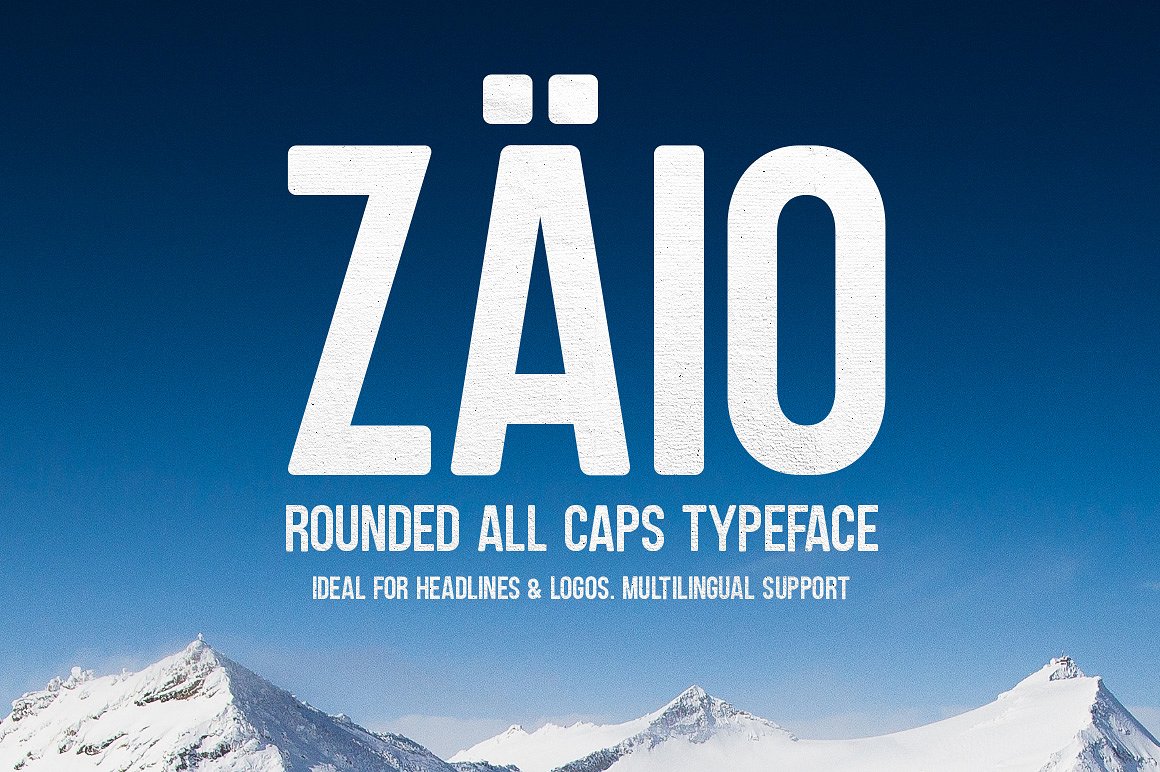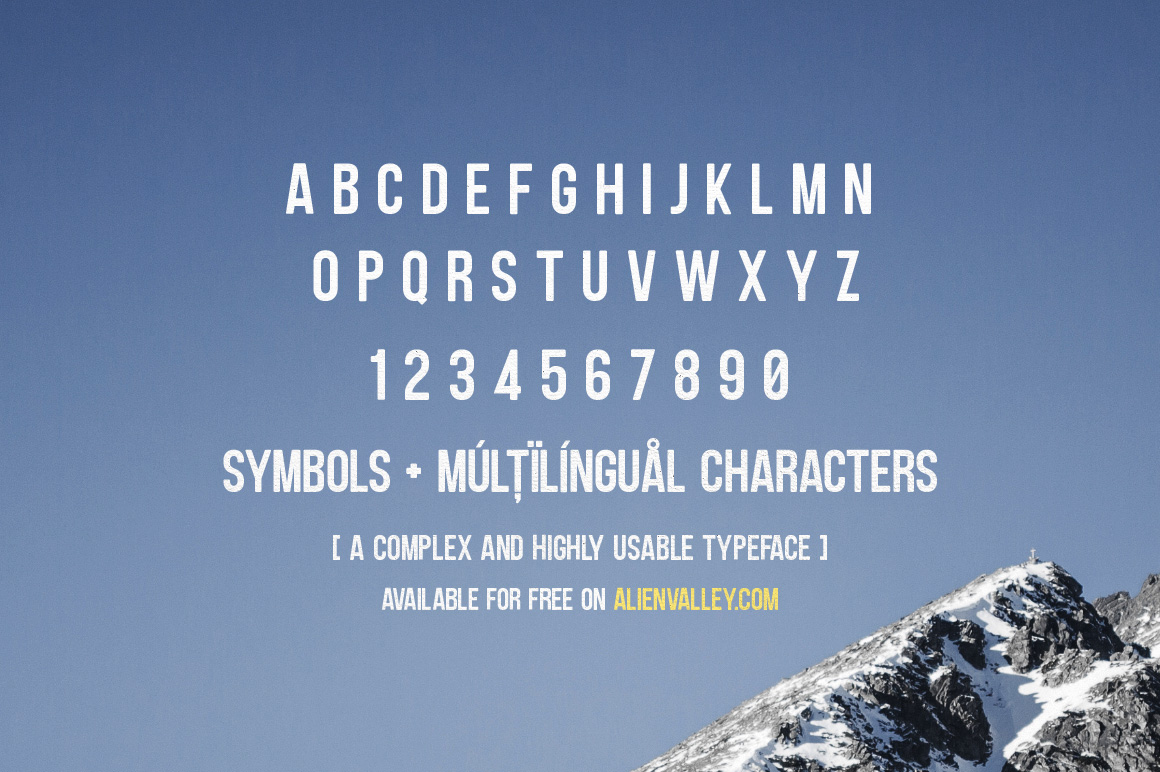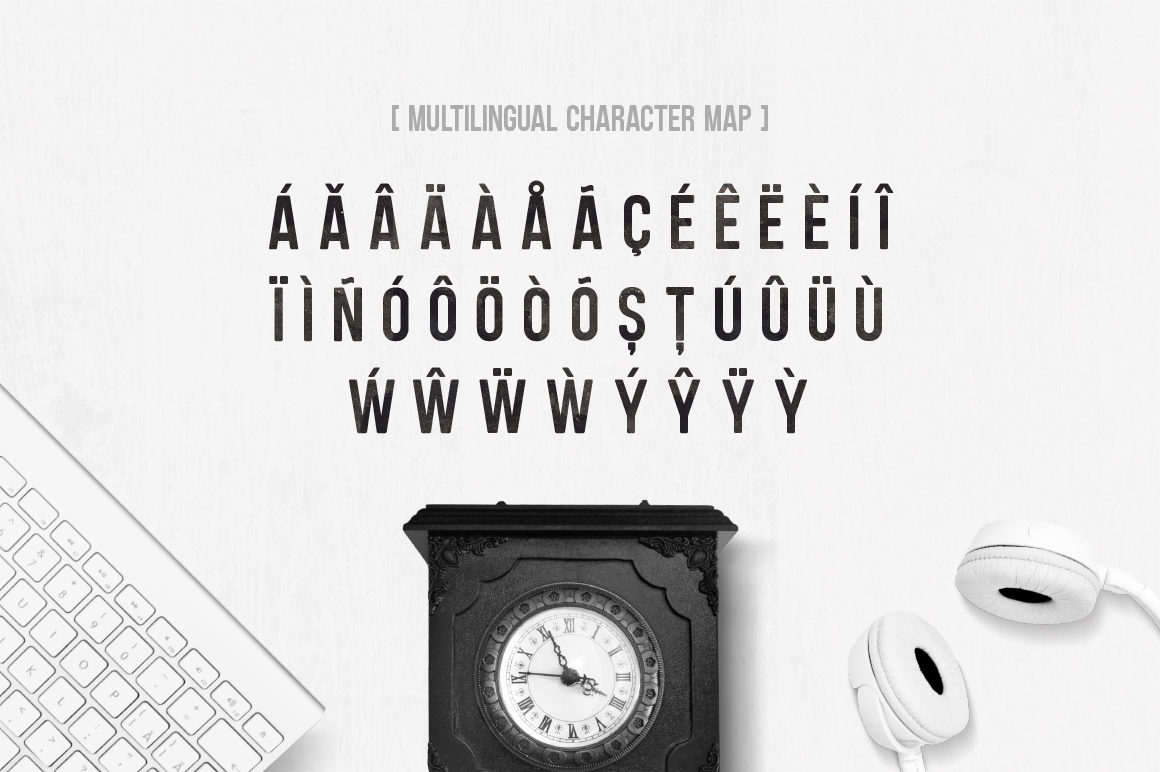
Zaio is a all caps rounded typeface that’s great for headlines and logos. Created by AlienValley, this font was inspired by Bebas Neue designed by Ryoichi Tsunekawa but it was built from scratch and it has some major differences. Can be used even for commercial purposes. It comes in OTF, TTF and Webfont formats (WOFF, WOFF2 and EOT).